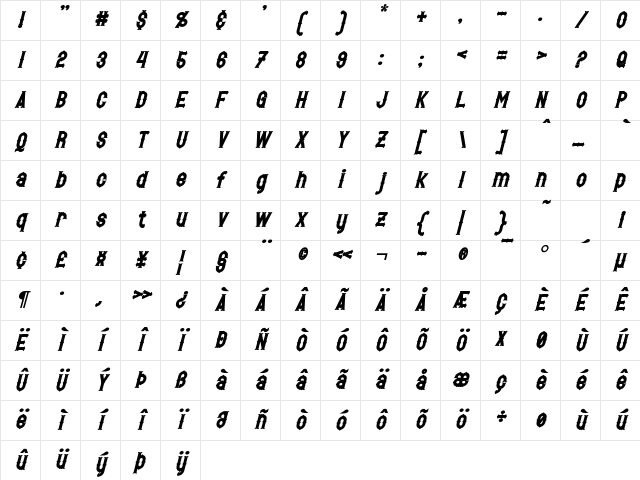
Hetfield Bold
Foundry: Pixel Sagas
Designer: Neale Davidson
Design Context for Hetfield
Hetfield is a composed and adaptable typeface that performs quietly and consistently across a wide range of design contexts. Its bold stroke weight gives it real presence on the page.